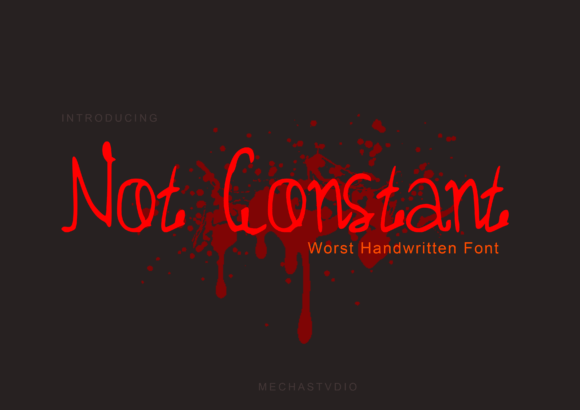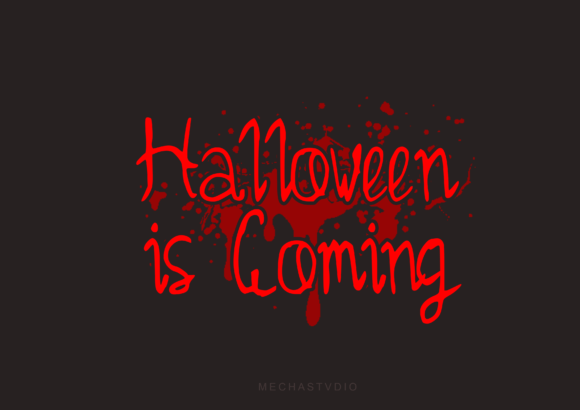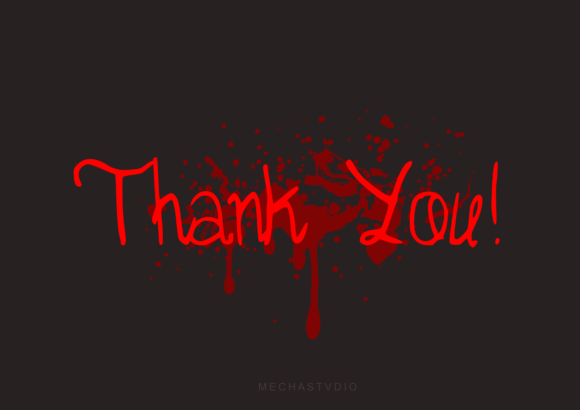
Not Constant Font
About Not Constant Font
“Not Constant: Where Horror Meets Uniqueness in Handwritten Typography
Introducing Not Constant, a font designed to send shivers down your spine and evoke a sense of fear and unease. This horror and scary handwritten font possesses a unique feel that sets it apart from the ordinary, making it the perfect choice for adding a creepy and spine-chilling vibe to your designs or projects. Whether you’re working on a Halloween-themed event, a horror movie poster, a spooky book cover, or any project that demands a touch of the macabre, Not Constant will send chills down the spines of your audience, leaving them in awe of its terrifying allure.
The power of Not Constant lies in its ability to create an atmosphere of fear and suspense through its handwritten style. Each letter is crafted with an unsettling and eerie vibe, making it look as though it has been scrawled hastily in the dead of night. The jagged edges and irregular strokes add to the font’s sinister charm, creating an instant sense of horror. Imagine your horror movie poster featuring Not Constant, with its letters dripping like blood, creating an atmosphere of terror that lingers long after the viewer has looked away. Picture your Halloween-themed event invitations adorned with this font, setting the stage for a night of spine-chilling frights. With Not Constant, your designs will leave a lasting impression, invoking fear and intrigue in equal measure.
One of Not Constant’s standout features is its uniqueness. Its handcrafted and spooky design sets it apart from conventional fonts, allowing you to create designs that stand out in the realm of horror and supernatural themes. Whether you’re working on haunted house flyers, eerie book covers, or any project that requires a touch of the unknown, Not Constant infuses your designs with a chilling aura, making them unforgettable and bone-chilling.
Moreover, Not Constant is more than just a font; it’s a conduit to the supernatural and mysterious. Its unique feel resonates with individuals who appreciate the thrill of horror and the allure of the unknown, making it a favorite among designers and enthusiasts seeking a font that captures the essence of fear and suspense. Its presence adds a layer of terror and excitement to your designs, making them visually haunting and unforgettable.
In a world where fear knows no bounds, Not Constant helps you make a statement. It speaks the language of horror and mystery, resonating with those who relish the adrenaline of the unknown. Whether you’re designing for Halloween, horror films, or any spine-chilling endeavor, Not Constant becomes your trusted companion, guiding you toward creating designs that leave a chilling mark on the hearts of your audience.
So, why settle for the ordinary when you can embrace the extraordinary fear with Not Constant? Let this horror and scary handwritten font with a unique feel be the gateway to your darkest creative expressions, and watch as your projects come to life with spine-chilling terror, leaving a haunting impression on the minds of your audience. Let your creativity flow, and let Not Constant be the brushstroke that paints your ideas into terrifying masterpieces, leaving an unforgettable mark on the souls of your viewers.”